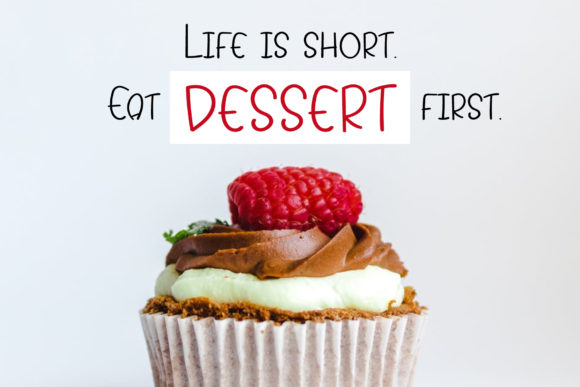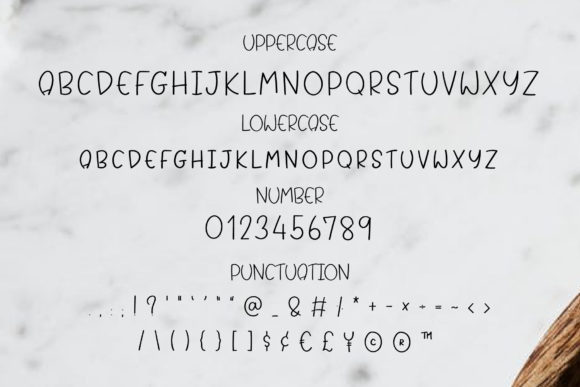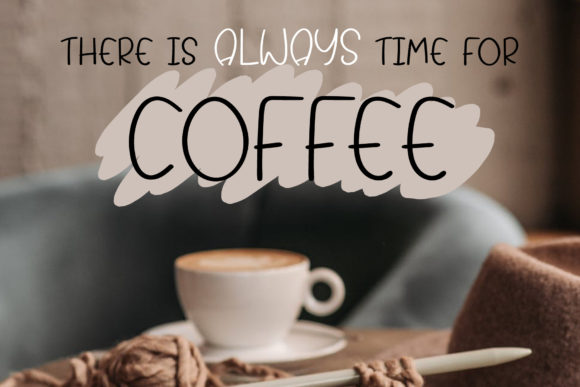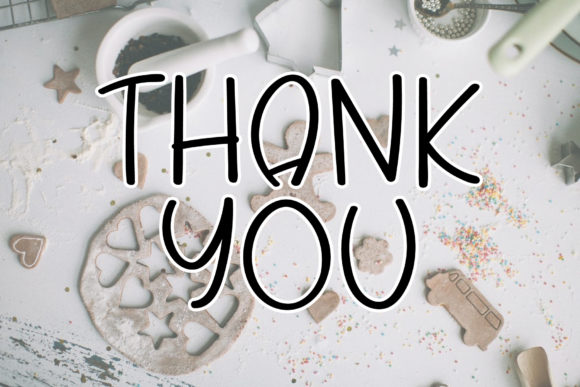
Peanut Butter Font
About Peanut Butter Font
Peanut Butter is a playful and whimsical handwritten font that is sure to bring a smile to your designs. With its cute and quirky style, this font adds a touch of fun and personality to any project.
The unique and original look of Peanut Butter makes it a versatile choice for various design ideas. Whether you’re working on letterheads, titles, stationery, or other crafty projects, this font will add a charming and lighthearted feel to your designs.
The casual and hand-drawn appearance of Peanut Butter creates a sense of warmth and approachability. It’s perfect for creating a friendly and inviting atmosphere in your designs. The uneven strokes and irregular shapes of the letters give the font a handmade and organic feel, adding a touch of authenticity to your projects.
Peanut Butter’s appeal lies in its ability to capture the essence of handmade and DIY aesthetics. It’s well-suited for designs that aim to evoke a sense of playfulness, creativity, and personal touch. Whether you’re designing greeting cards, party invitations, or scrapbooking elements, this font will add a whimsical and delightful touch to your creations.
The versatility of Peanut Butter extends to a wide range of applications. It can be used in digital designs, print materials, social media graphics, logos, branding, and more. Its distinct and memorable style will make your designs stand out and leave a lasting impression on your audience.
In conclusion, Peanut Butter is a cute and quirky handwritten font that adds a playful and whimsical touch to your designs. Its original look and versatility make it suitable for various crafty ideas, from letterheads and titles to stationery. Embrace the charm of Peanut Butter and let it bring a smile to your creative projects.